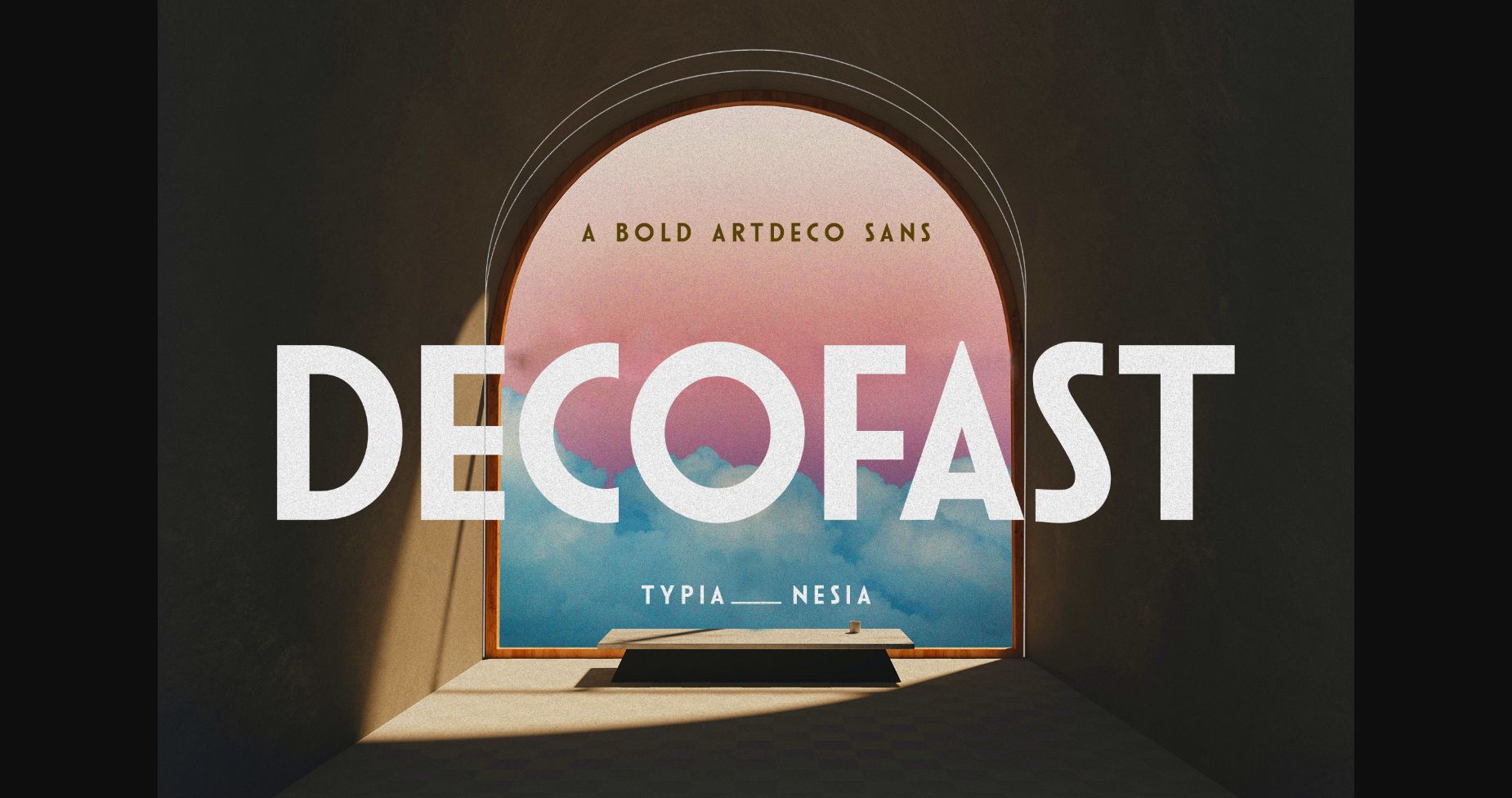
About Decofast Font
Decofast is an Art Deco-inspired sans-serif font that embodies the classic vintage style. This display font is perfect for creating designs that evoke the glamour and elegance of the Art Deco era. Decofast Sans is suitable for various applications, including branding, logos, packaging, posters, and any project that requires a touch of classic sophistication.